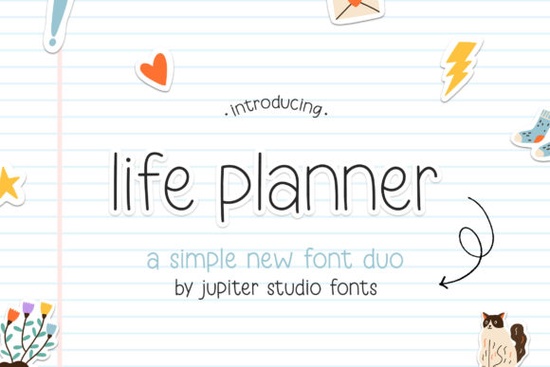
When it comes to adding a touch of simplicity and neatness to your designs, the Life Planner Duo Font is a fantastic choice. This minimal sans serif font is versatile and can be used in a wide range of projects, from planners and journals to branding and digital graphics.
Why Choose Life Planner Duo Font?
Life Planner Duo stands out with its clean lines and readability, making it an excellent option for both print and digital use. Whether you're designing a planner, creating a logo, or crafting social media graphics, this font adds a professional yet approachable feel to your work.
Perfect for Various Creative Projects
One of the key strengths of Life Planner Duo is its versatility. Here are some project ideas where this font can shine:
- Planners and Journals: The clean, minimal design makes it ideal for headers, titles, and body text in planners and journals.
- Branding and Logos: Use it for business cards, logos, and other branding materials to give a modern and professional look.
- Social Media Graphics: Create eye-catching posts and stories with this easy-to-read font.
- Print-on-Demand Products: Add it to mugs, t-shirts, and other merchandise for a sleek and stylish touch.
How Does It Compare to Other Sans Serif Fonts?
While there are many sans serif fonts available, Life Planner Duo offers a unique balance of simplicity and elegance. For instance, if you compare it to Gaglio, you'll notice that Life Planner Duo has a more streamlined and modern appearance. Similarly, when compared to Savora, it provides a cleaner, more minimalistic feel, which can be particularly useful for projects that require a lot of text.
Using Life Planner Duo in Your Designs
Incorporating Life Planner Duo into your designs is straightforward. Here are a few tips to get you started:
- Choose the Right Size: Start with a size that ensures readability. For headings, you might go for a larger size, while for body text, a smaller, more legible size works well.
- Pair with Complementary Fonts: Consider pairing Life Planner Duo with a serif or script font for a balanced and dynamic look. For example, you could use Ragonte for a more traditional feel.
- Experiment with Colors: Play around with different color schemes to see what best complements your design. Neutral colors like black and white are always a safe bet, but don't be afraid to add a pop of color for emphasis.
- Experiment with different sizes and colors to find the best fit for your design.
- Pair it with complementary fonts for a balanced and dynamic look.
- Use it in various projects, such as planners, branding, and social media graphics.
Final Thoughts
The Life Planner Duo Font is a versatile and elegant choice for designers, crafters, and small businesses. Its clean and minimal design makes it suitable for a wide range of projects, from planners and journals to branding and digital graphics. By following the tips above, you can effectively incorporate this font into your designs and create standout projects.